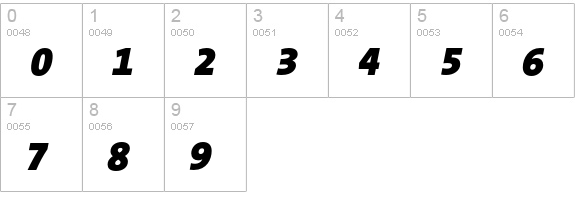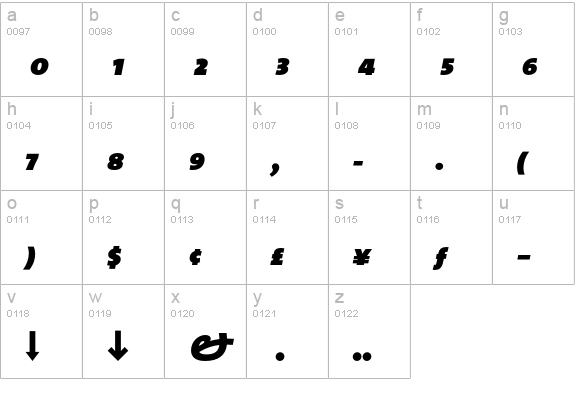
TheSans Black Expert Italic Font Details
TheSans Black Expert Italic is a maximum-weight, dramatic, italic variant in the TheSans typeface family \xE2\x80\x94 well suited to maximum-impact headlines, posters, and packaging.
TheSans Black Expert Italic font is a visually stunning and highly versatile typeface that exudes elegance and sophistication. With its sleek and streamlined design, this font is perfect for adding a touch of modernity to any project. The expertly crafted italic style adds a sense of fluidity and movement to the text, making it ideal for conveying a sense of dynamism and energy. Whether used in headings, logos, or body text, this font effortlessly captures attention and leaves a lasting impression. TheSans Black Expert Italic font offers a wide range of characters, including uppercase and lowercase letters, numbers, punctuation marks, and special symbols. Its extensive character set ensures that it can be used for various languages and typographic needs. One of the most remarkable features of this font is that it is available for free. Yes, you read that right - it can be freely downloaded from FontsMarket.com. This means that you can enhance your creative projects without having to worry about any additional costs. TheSans Black Expert Italic font is designed with utmost care and attention to detail, ensuring that every curve and contour is meticulously crafted. Its high-quality design guarantees that your text will look sharp and professional, whether it is used for print or digital applications. Whether you are a graphic designer, web developer, or simply someone who appreciates beautiful typography, TheSans Black Expert Italic font is a must-have in your font collection. Its combination of elegance, versatility, and the added benefit of being free to download makes it an invaluable resource for all your design needs. So why wait? Head over to FontsMarket.com and get your hands on this remarkable font today!